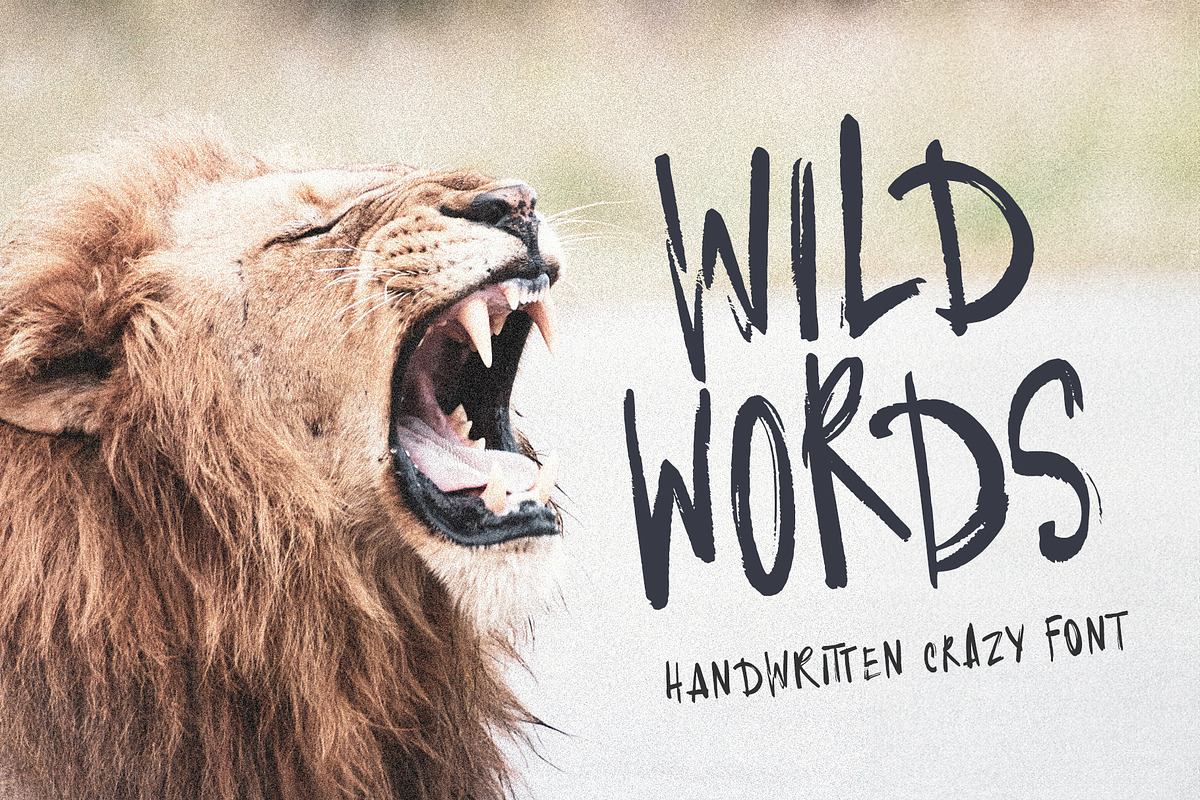
Wild Words handwritten textured font Free Download
Wild Words Handwritten Textured Font Free Download
Wild Words Handwritten Textured Font Free Download is a bold, expressive typeface with a raw, hand-drawn feel that’s perfect for designs bursting with personality. Featuring rough textures and natural strokes, this font captures the energy of quick handwriting, making it ideal for posters, branding, quote graphics, apparel, and anything that needs a touch of wild, creative spirit.
The textured finish gives each character a gritty, authentic edge—perfect for artists, creatives, and designers looking to break away from polished, digital perfection. Whether you’re designing for streetwear or storytelling visuals, Wild Words adds attitude and emotion to your text.
Unleash bold creativity with the textured impact of Wild Words.